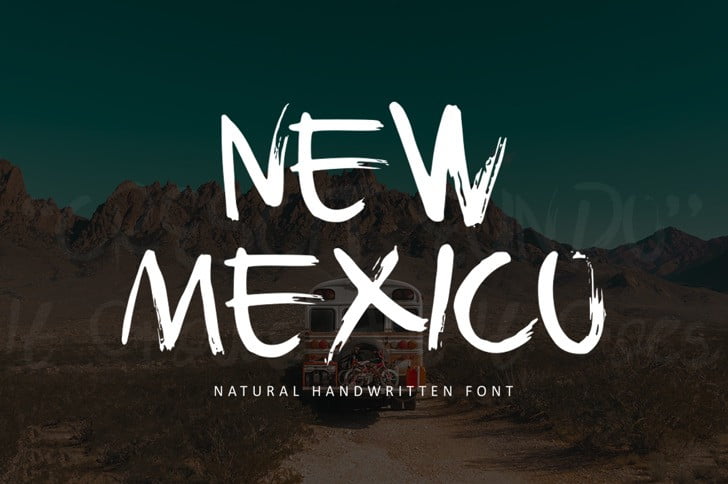
New Mexico Font
Introducing New Mexico Font – a handwritten brush Font with authentic dry brush strokes drawn on paper.
Perfect for logo designs, poster design, social media, typographic quotes over photos, book covers and packaging design.